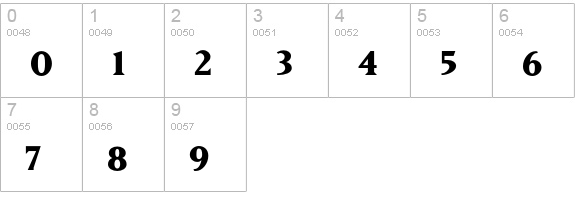
MatrixExtraBoldLining Font Details
MatrixExtraBoldLining is a striking and bold font that demands attention with its strong, solid lines and modern design. The extra bold weight of this typeface adds a sense of power and authority to any text it is applied to. Perfect for headlines, posters, and any design project that requires a bold statement. The best part? MatrixExtraBoldLining is available for free download at FontsMarket.com, making it a valuable addition to your font collection without breaking the bank. Make a bold impression with MatrixExtraBoldLining today!